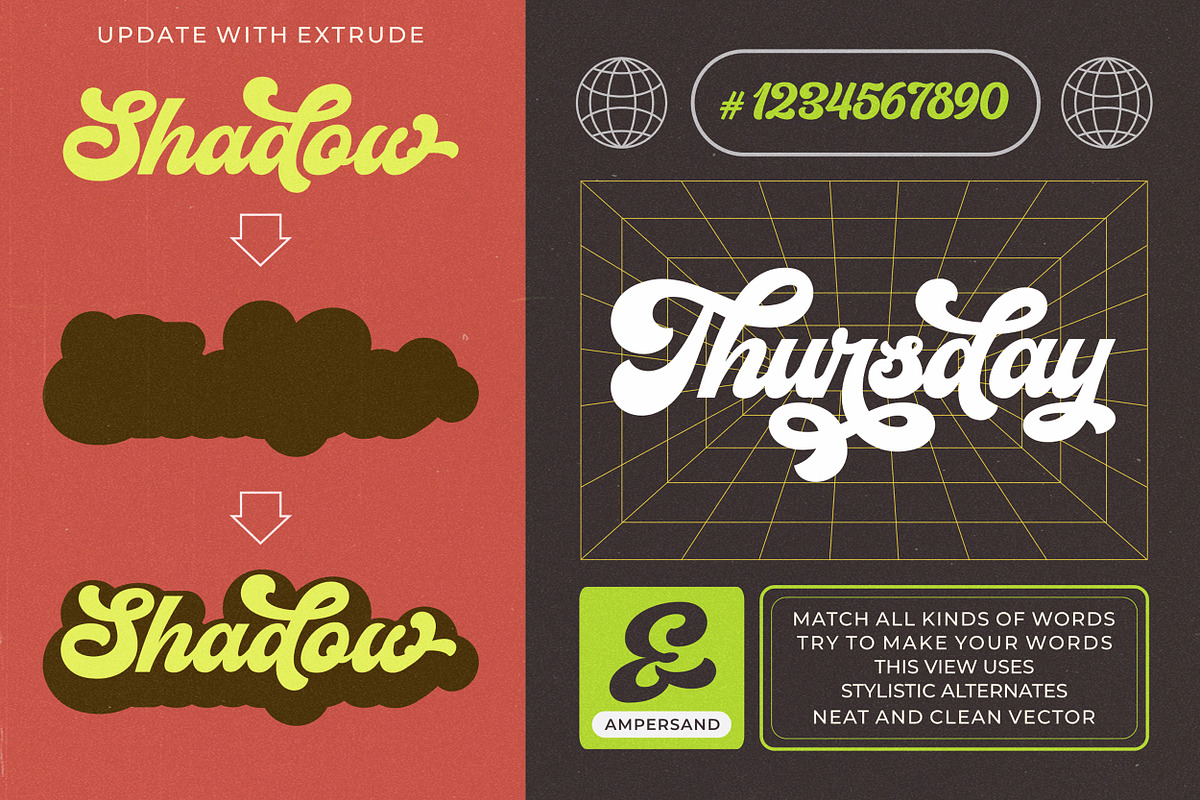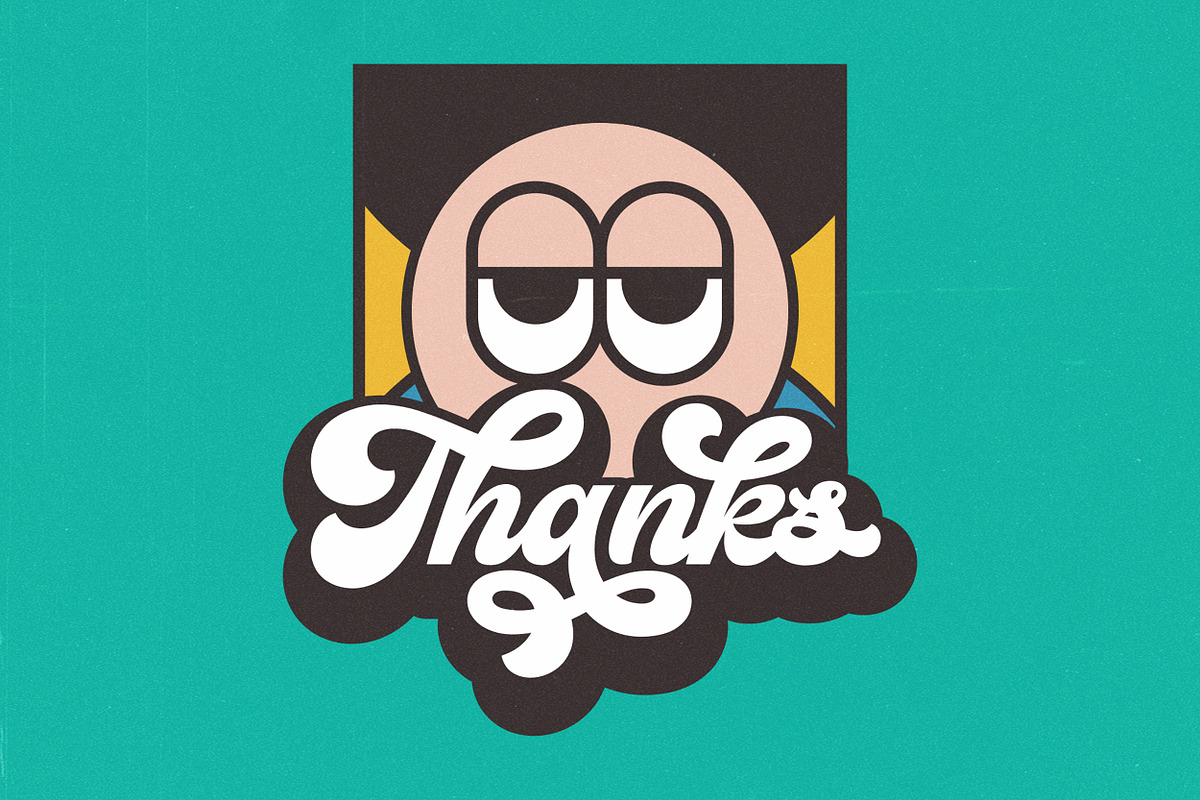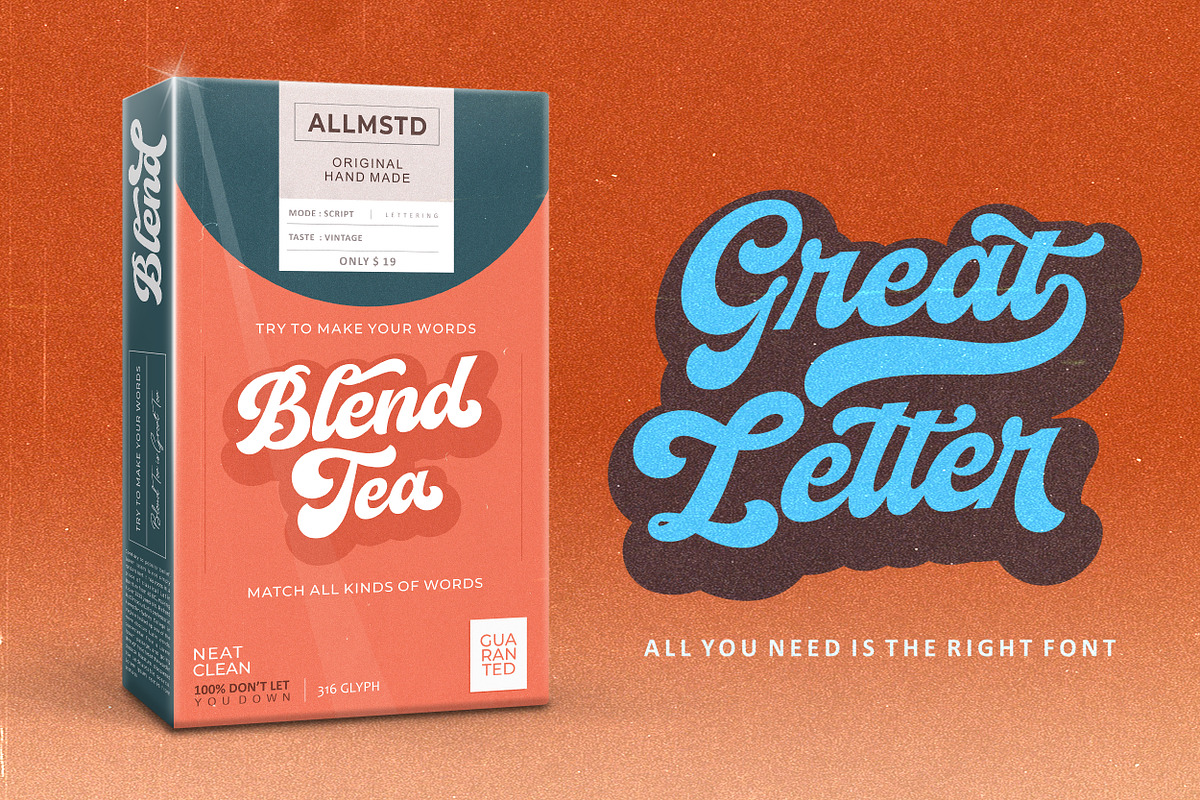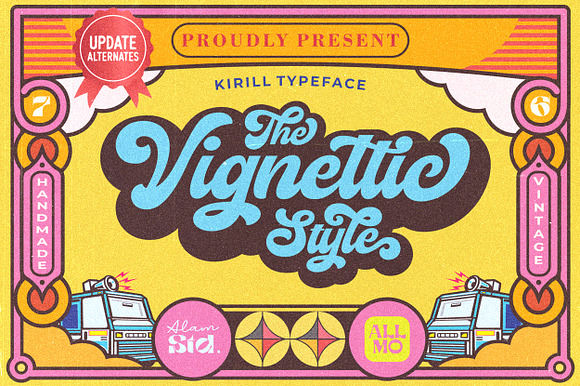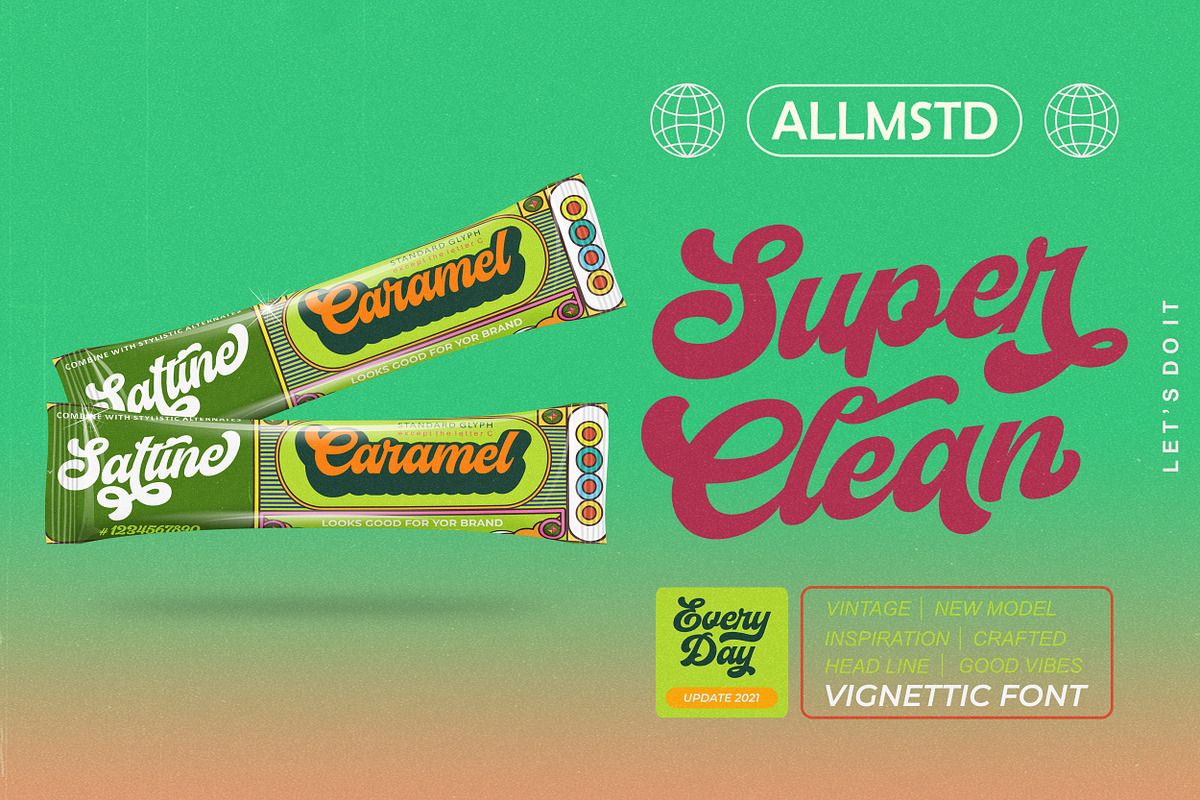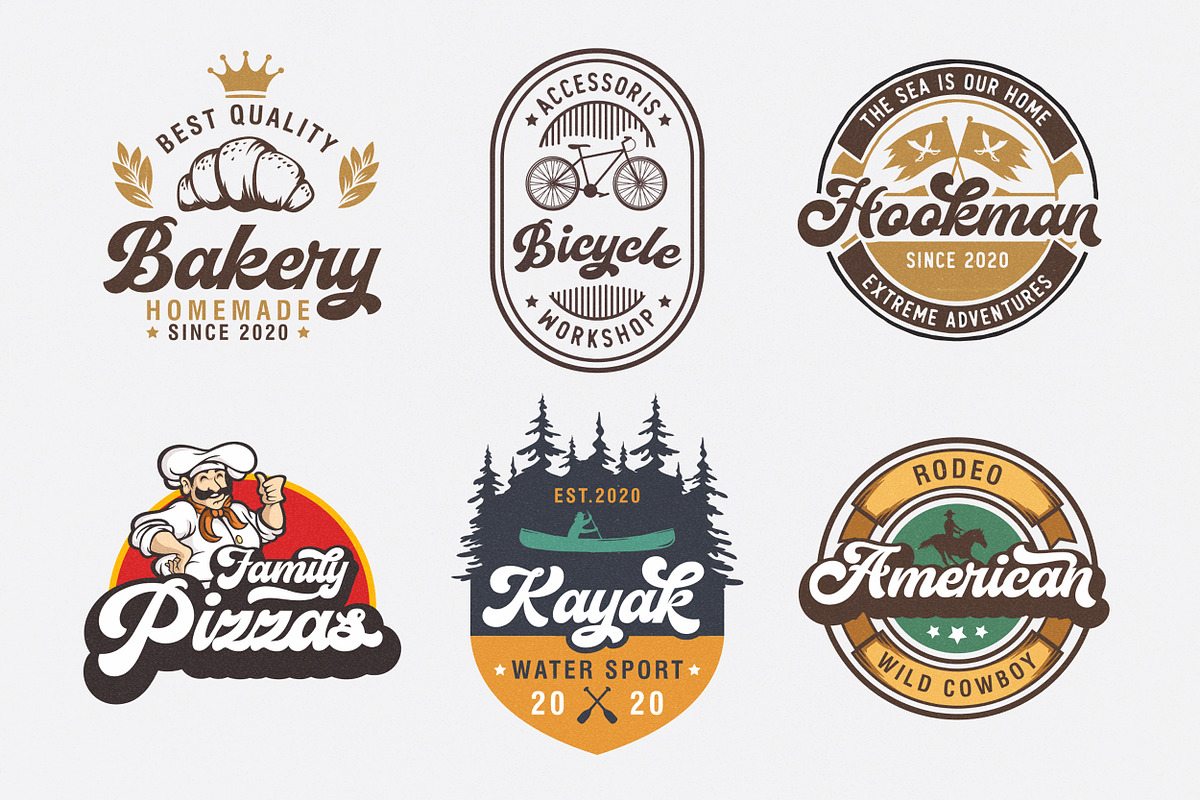
Vignettic Font
Vignettic font comes with a retro, modern and vintage touch in it. Inspired by dinamic culture, sign and badges design. Vignettic Script comes with uppercase, lowercase, numerals, punctuations and so many variations on each characters include opentype alternates. This font is great for your creative project such as logos, posters. invitations cards, packaging, badges, logotype, apparel design and Label. But don't let we restrain your imagination of course. Work well on both vintage and modern design. You can see our design implementation on preview images to check the result sample. Vignettic Font looks Perfect for use in anything from Branding, Web, Packaging, Etc.